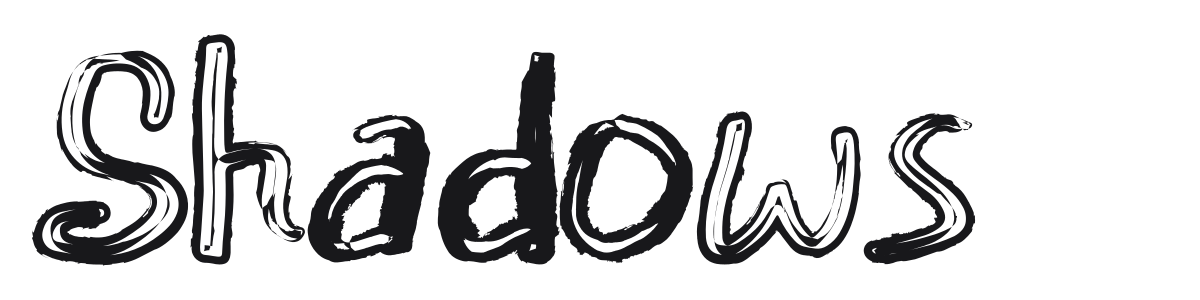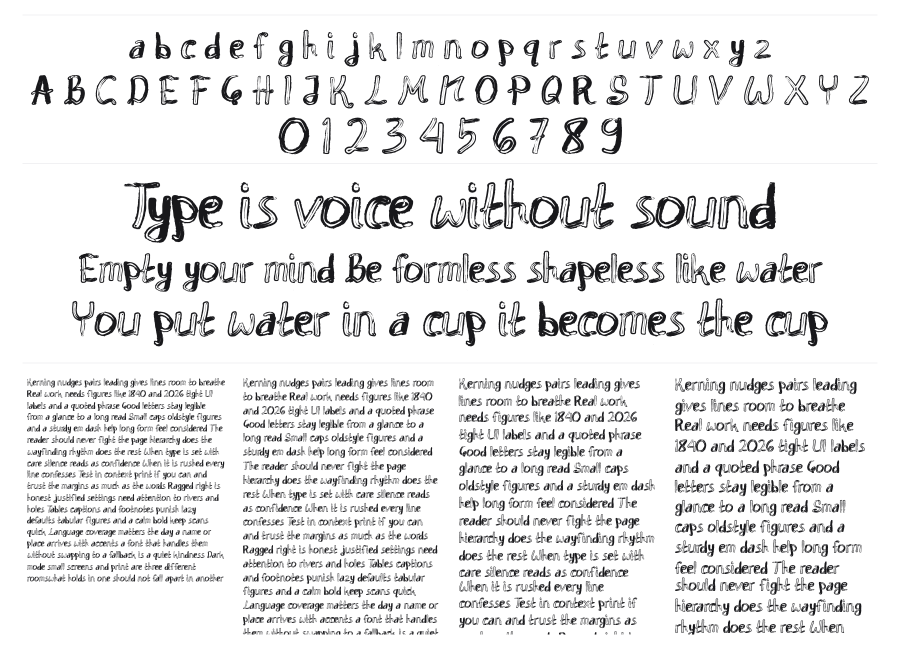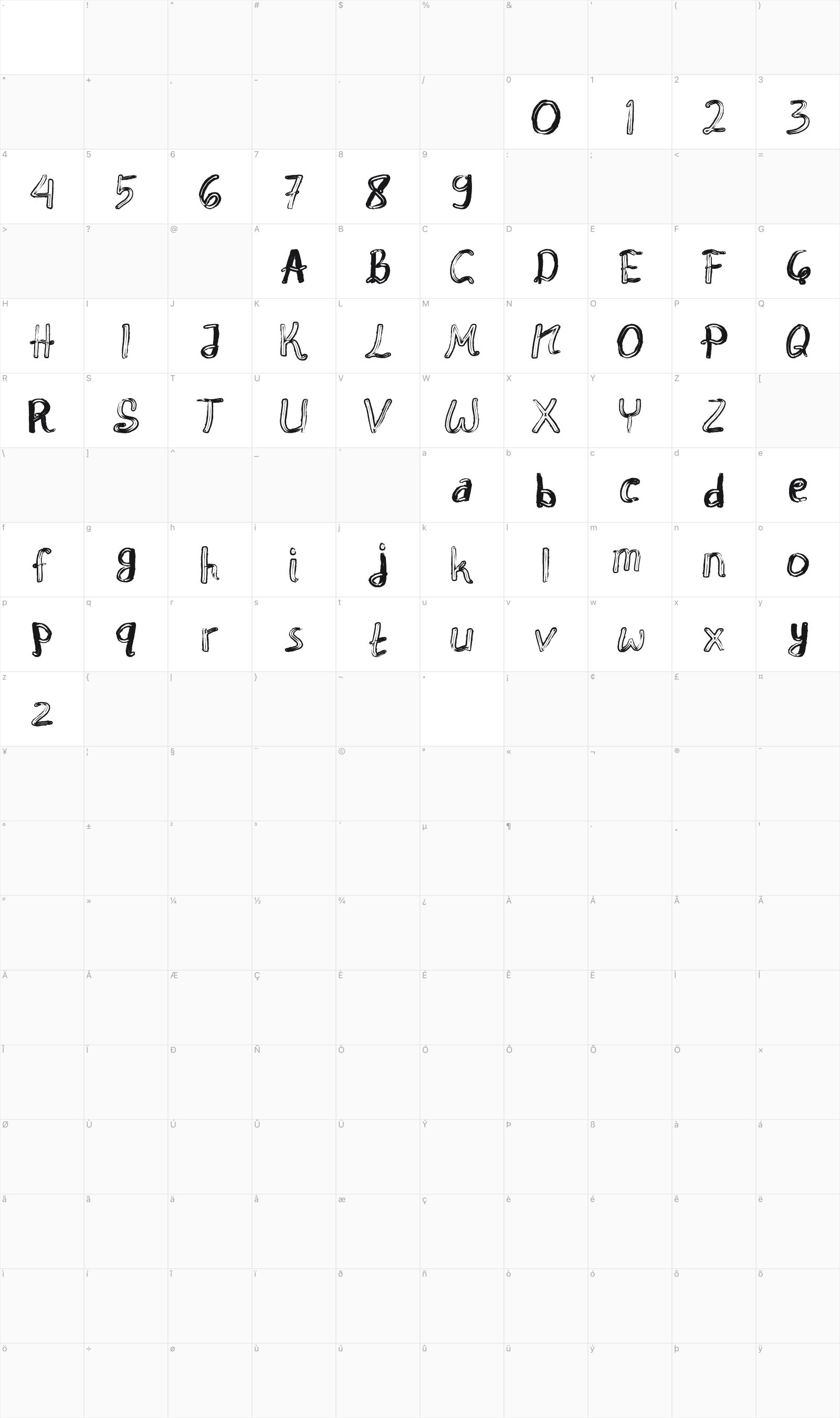
Shadows
by Ditya Ananto
Shadows is a casual brush script built around rough, inky strokes that feel genuinely hand-painted rather than digitally smooth. The irregular stroke edges and slight baseline bounce give it a lively, unpolished energy. It works best at display sizes where the texture has room to read.